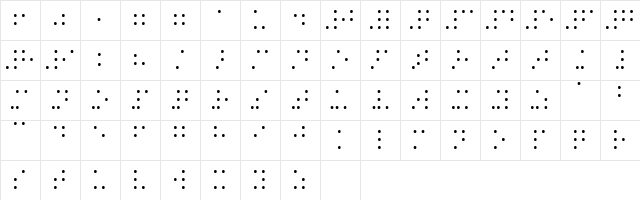
BrailleSH Regular
Design Context for BrailleSH Typeface
BrailleSH offers clean, dependable letterforms without strong stylistic allegiance, making it a practical choice for designers who need flexibility.